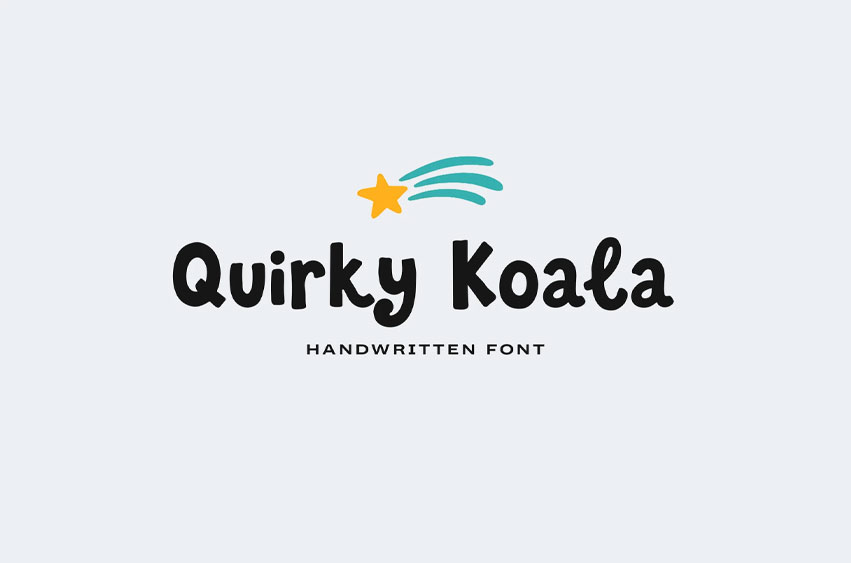
Quirky Koala Font
Quirky Koala Font is a fun and playful handwritten font with bold, chunky, and slightly quirky letters. Perfect for kids’ designs, birthday invitations, classroom projects, stickers, posters, logos, and cheerful branding.
This font has a cute handmade look that adds a happy and friendly feel to any design.